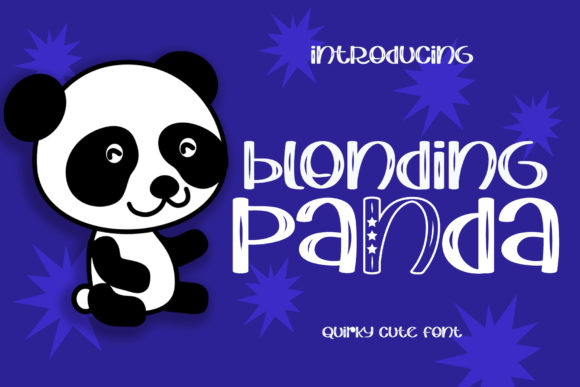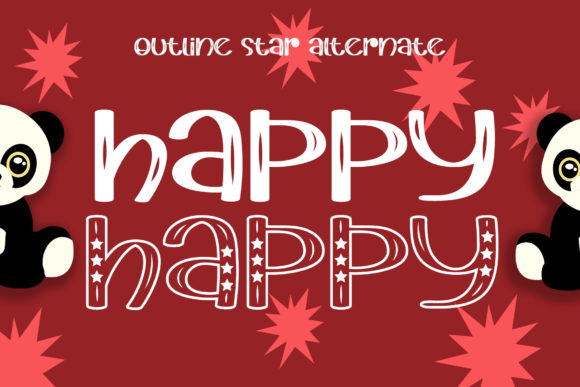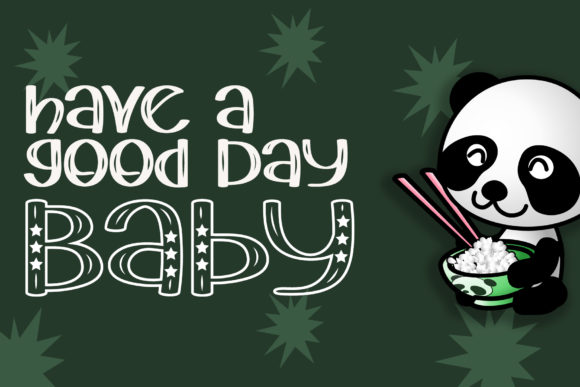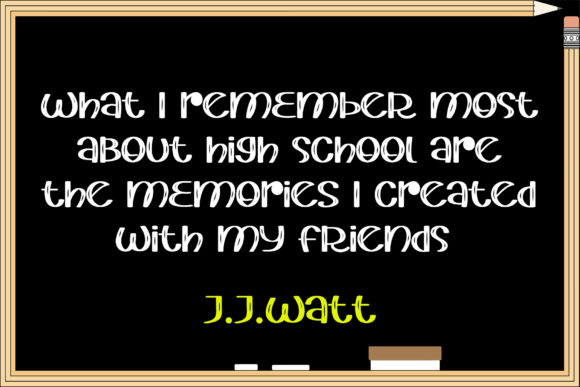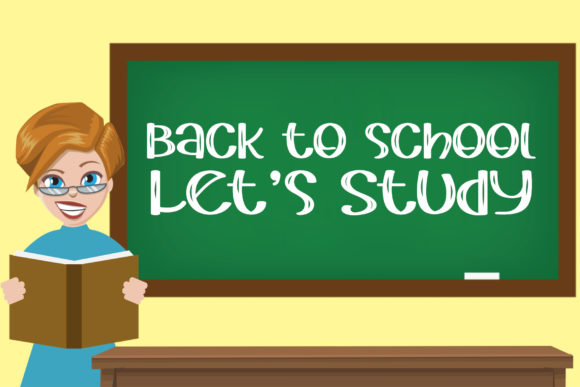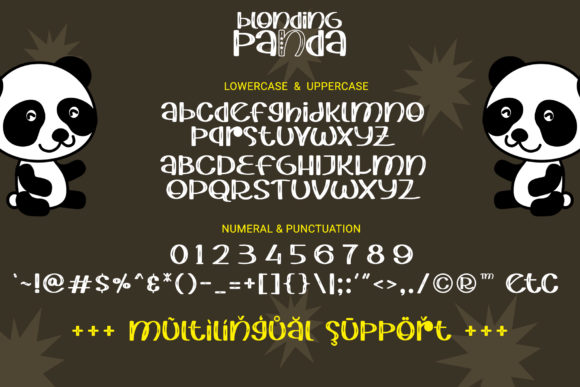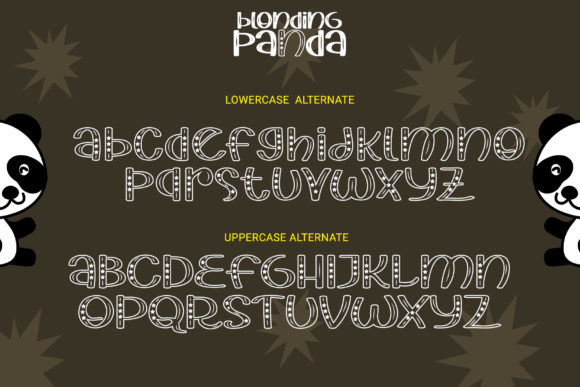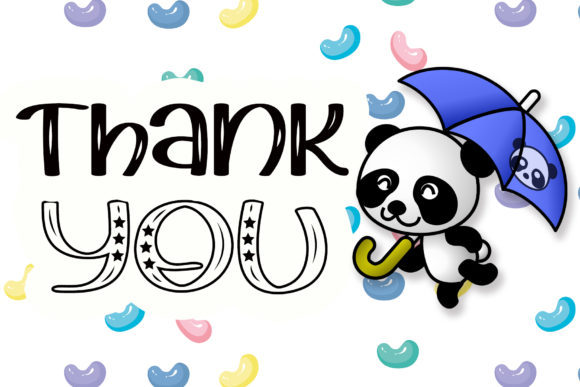
Blonding Panda Font
About Blonding Panda Font
Blonding Panda is a quirky cute font that will radiate the cuteness in your design. Fall in love with its whimsical charm!